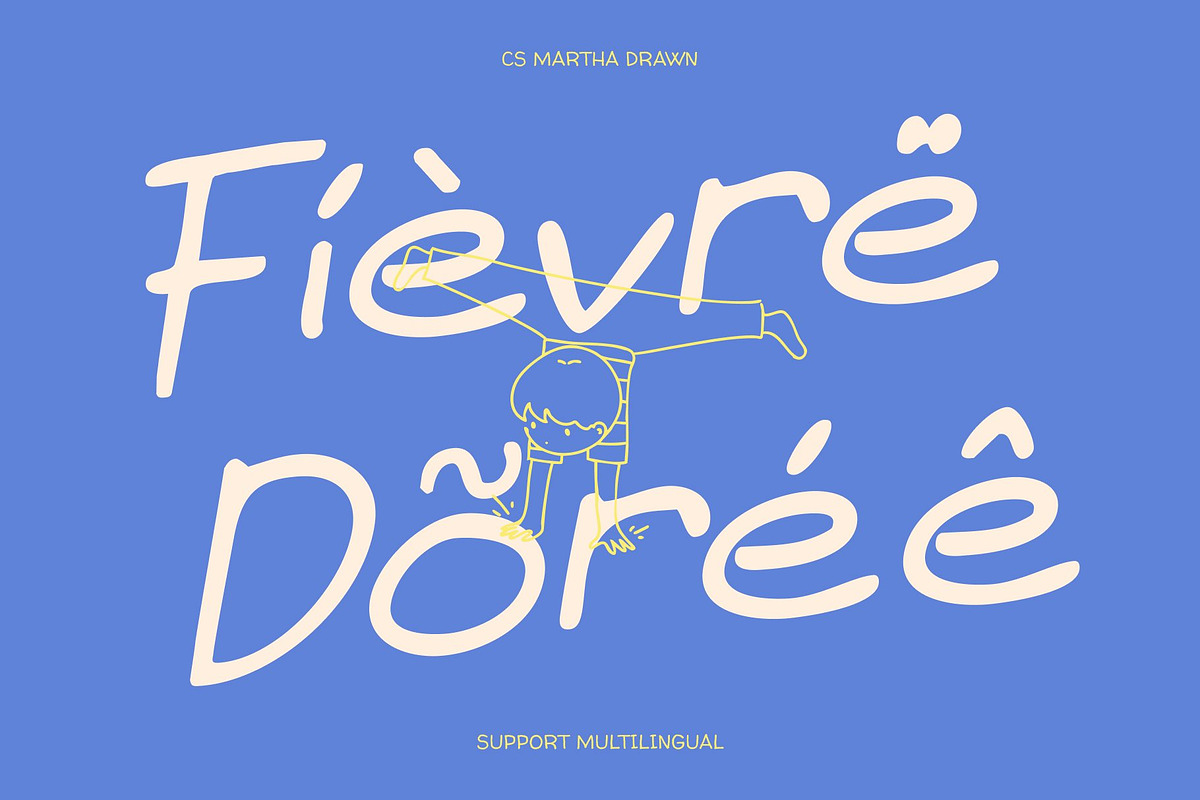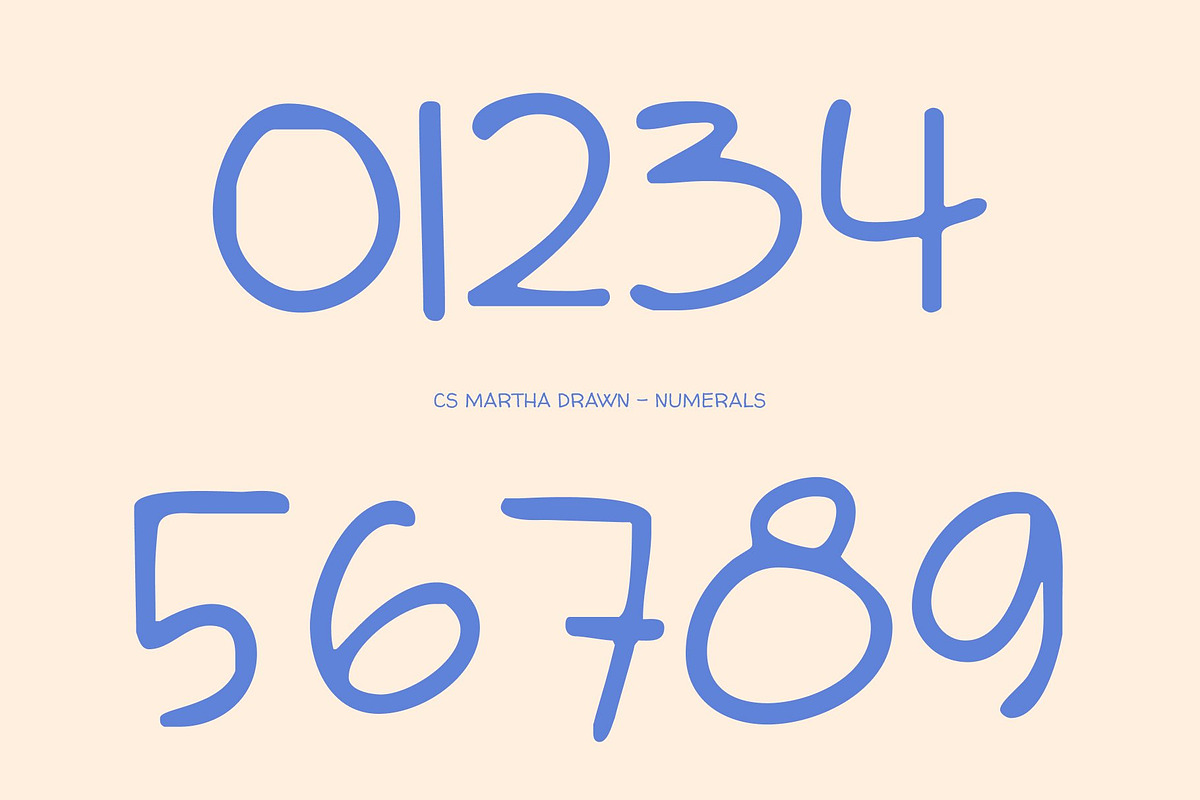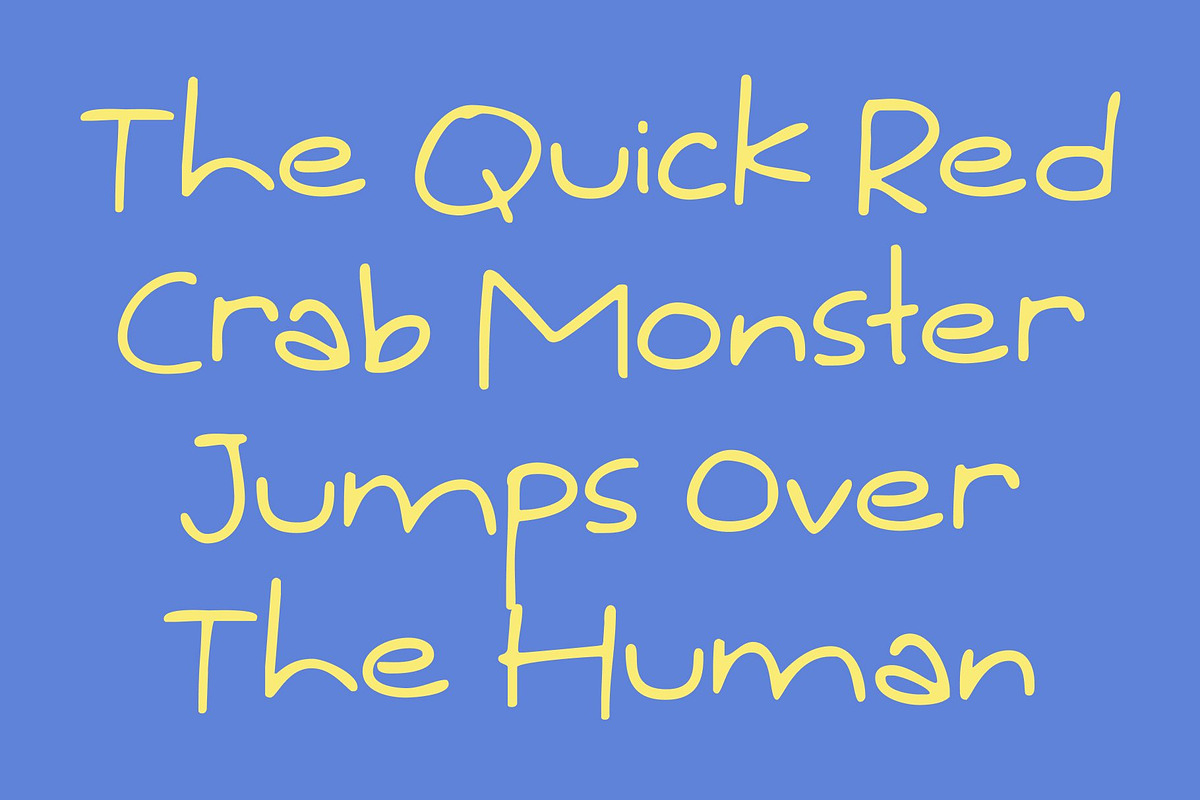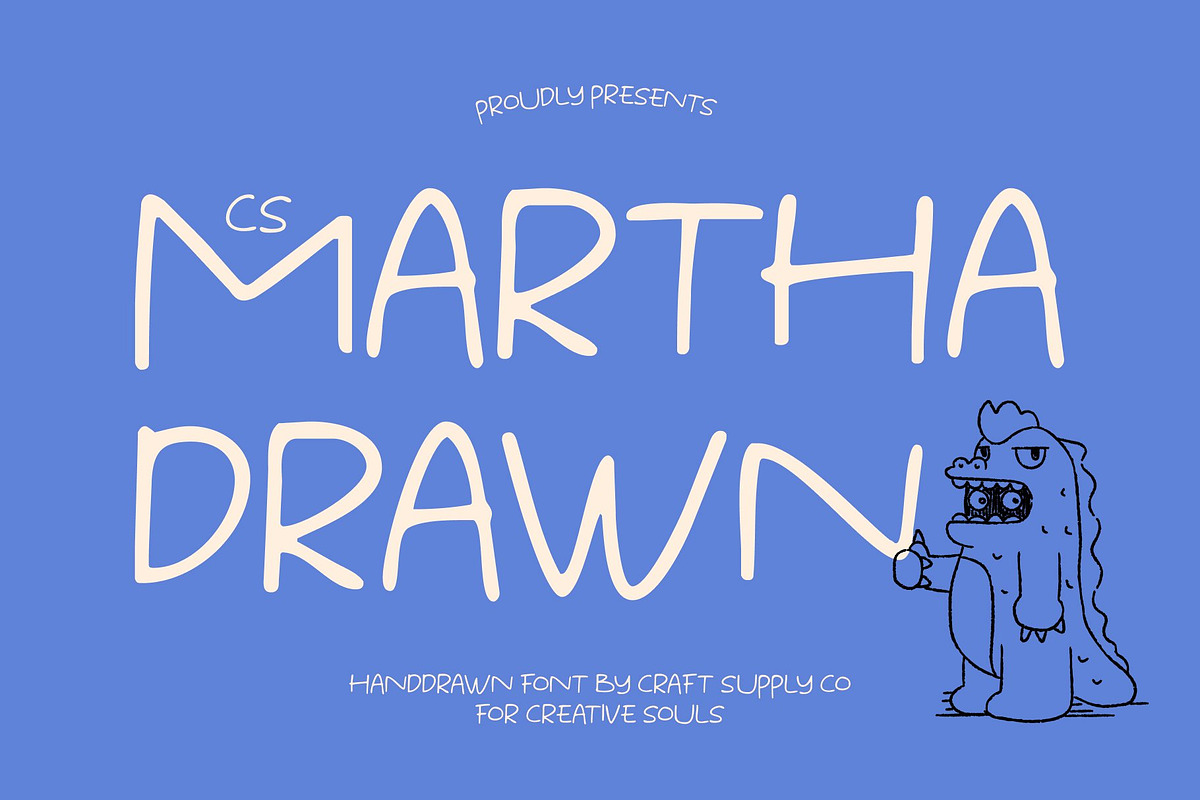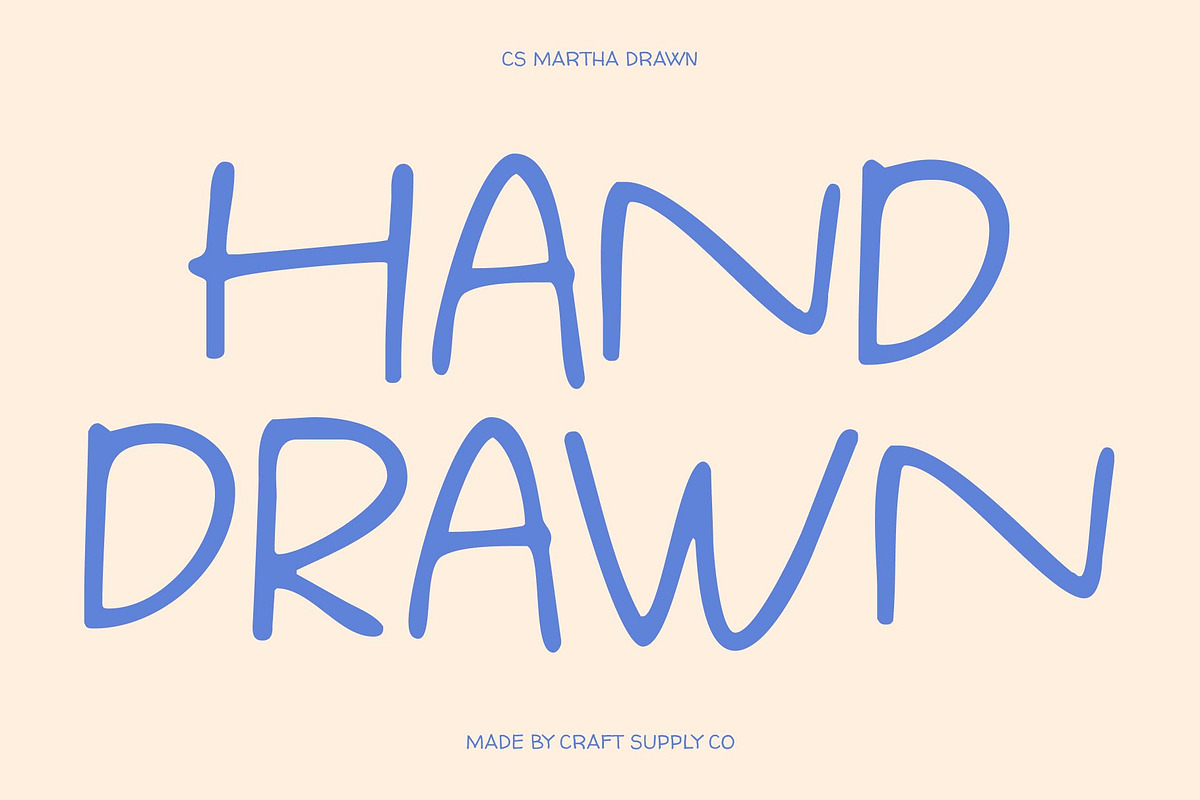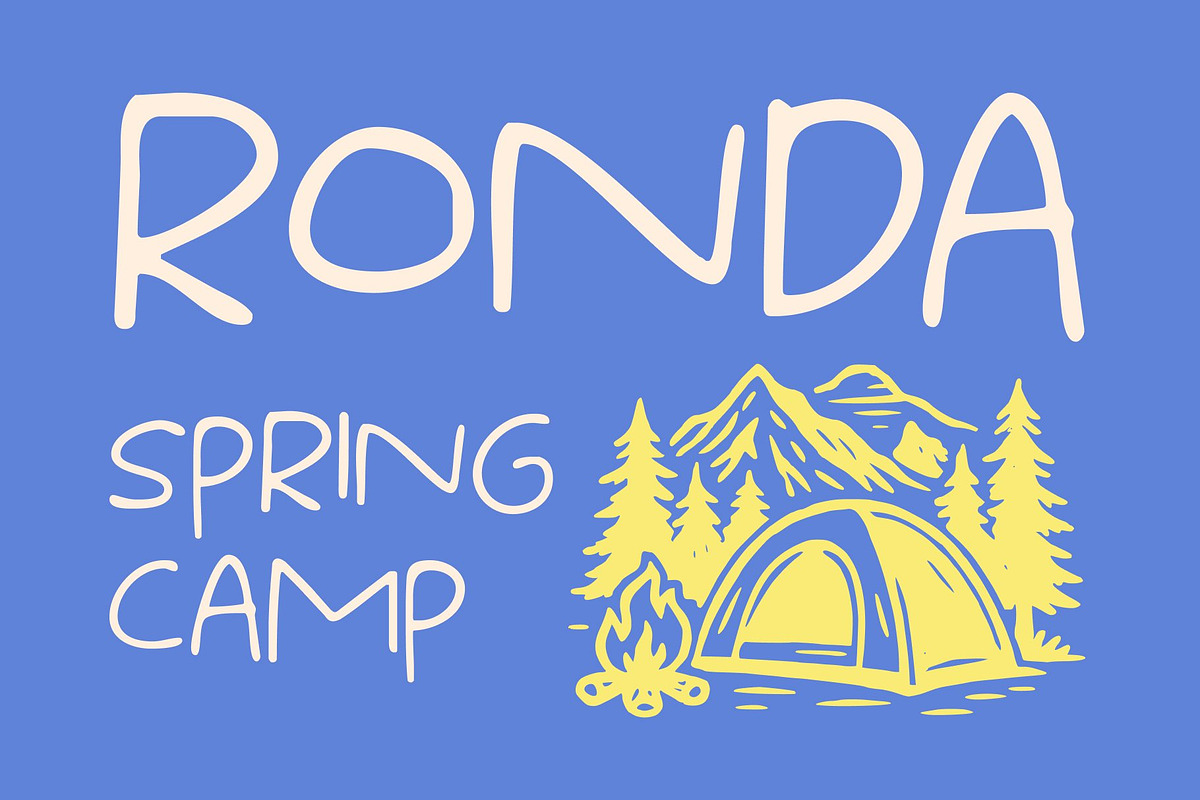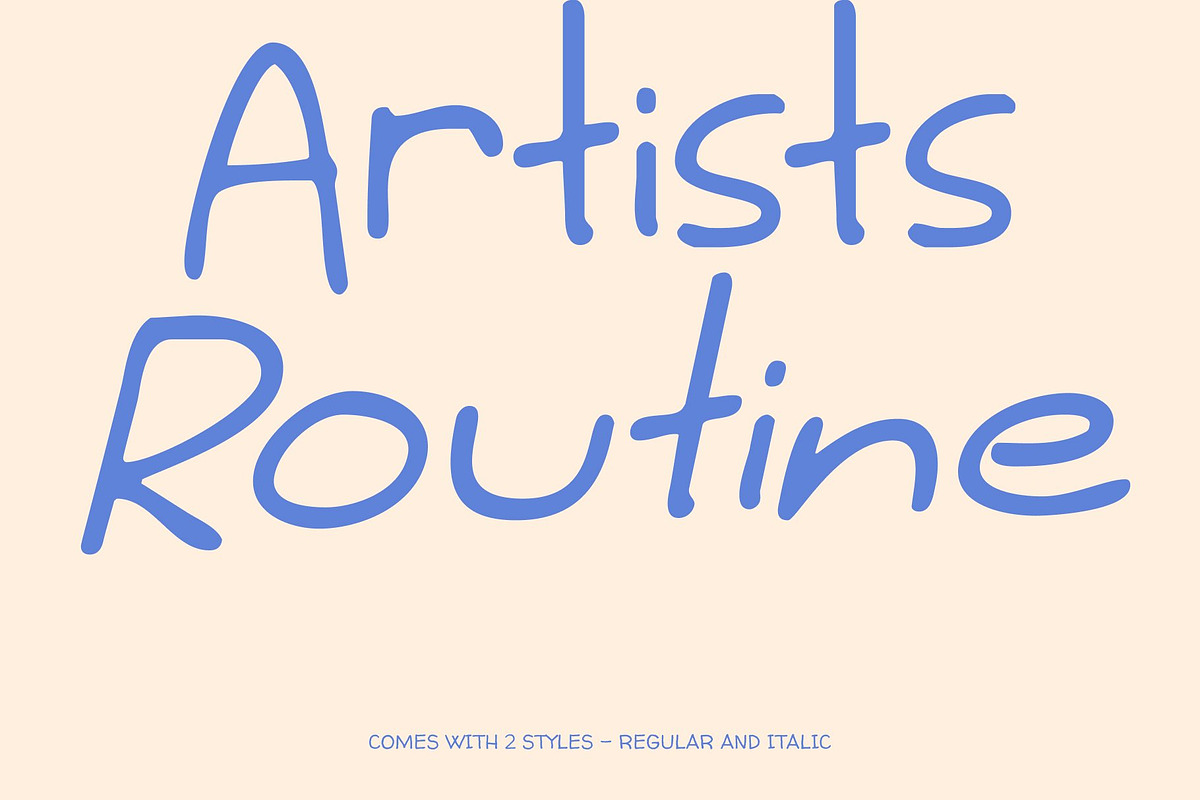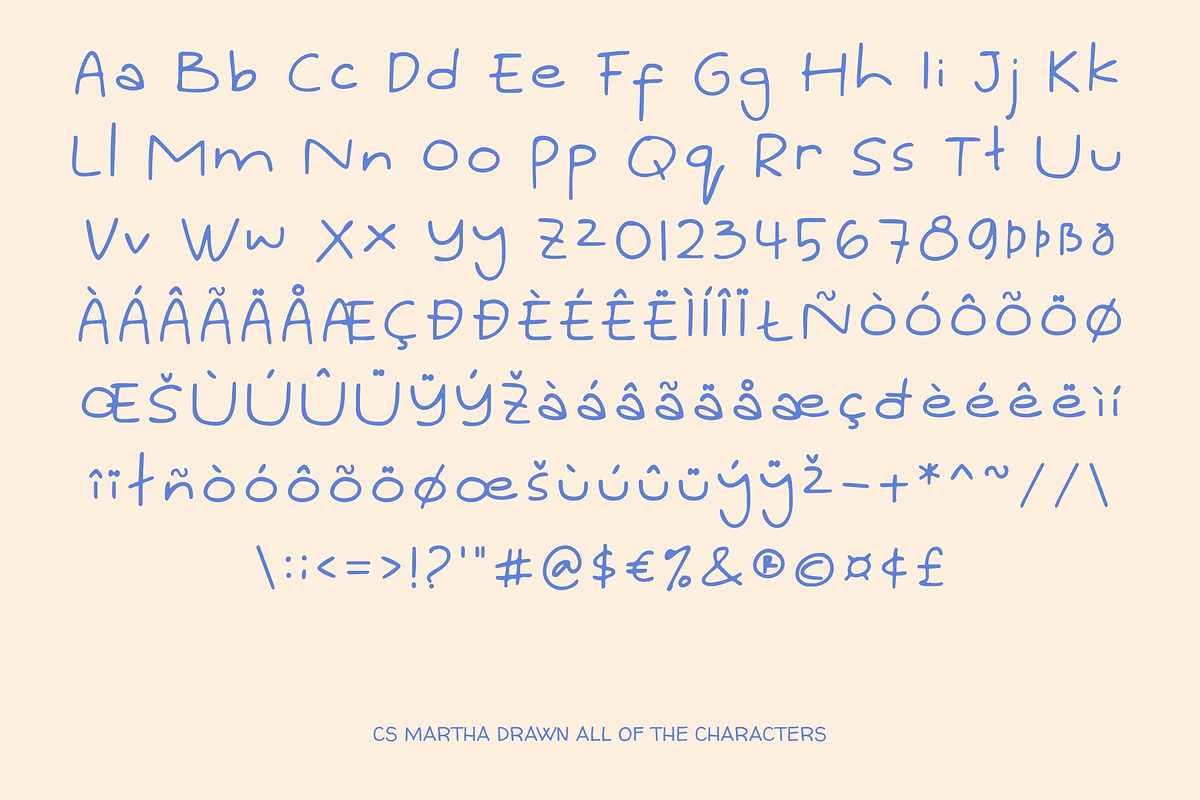
CS Martha Drawn
CS Martha Drawn – Fun, Expressive, and Full of Handwritten Charm
Expressive Handwritten Style with Natural Warmth This is a fun handwritten font designed to capture the lively charm of natural pen strokes. Enhanced with a subtle drawn effect, each letter feels spontaneous and personal, bringing warmth and authenticity to your typography. The organic flow of the characters creates an inviting, human-centered look that feels friendly, sincere, and full of expressive energy.
Lively Strokes with Artistic Drawn Texture The dynamic curves and casual rhythm of this font turn simple text into an engaging visual experience. Its drawn texture highlights natural imperfections, giving the letterforms an artistic and handcrafted quality. This imperfect beauty adds emotional depth and personality, making your message feel more relatable, creative, and alive.
Perfect for Personal Branding and Creative Storytelling This font shines in projects that value individuality and creativity. It’s ideal for personal branding, book titles, journals, quotes, and storytelling layouts that require warmth and approachability. The handwritten charm combined with drawn detailing makes it especially effective for playful posters, lifestyle visuals, and expressive social media content.
Versatile, Friendly, and Creatively Adaptable Beyond its expressive character, this font is highly versatile for both digital and print use. It pairs beautifully with colorful palettes, textured backgrounds, and relaxed compositions. Wherever you need typography that balances readability with charm, delivers a friendly, artistic voice that enhances any creative design.